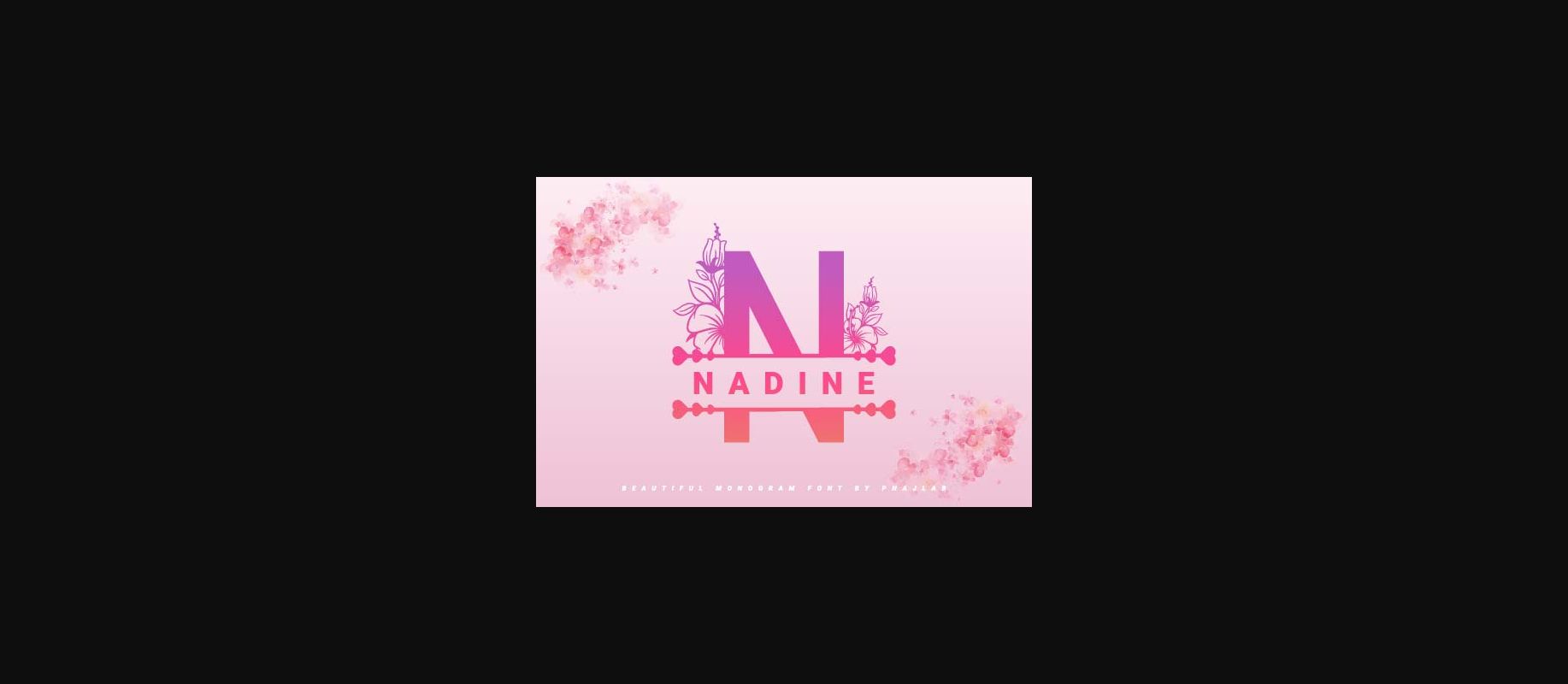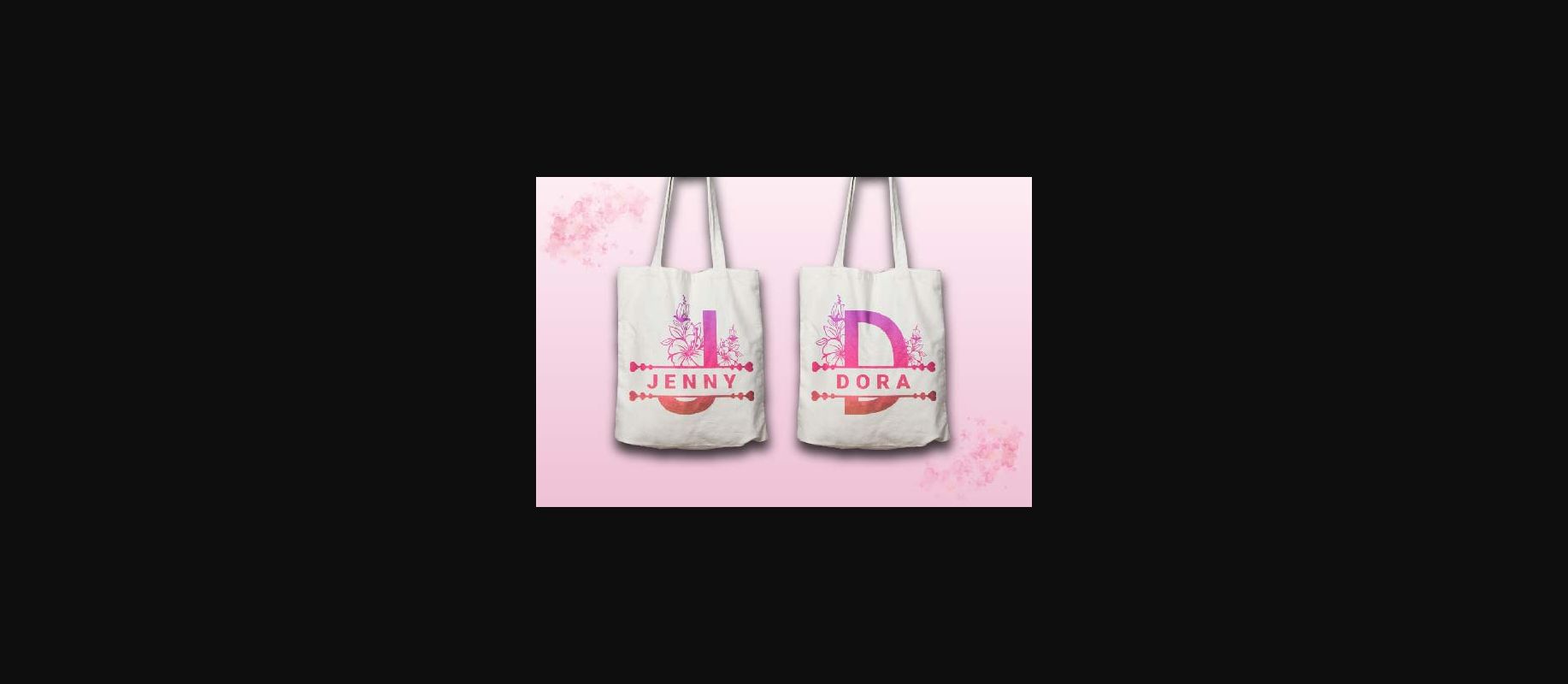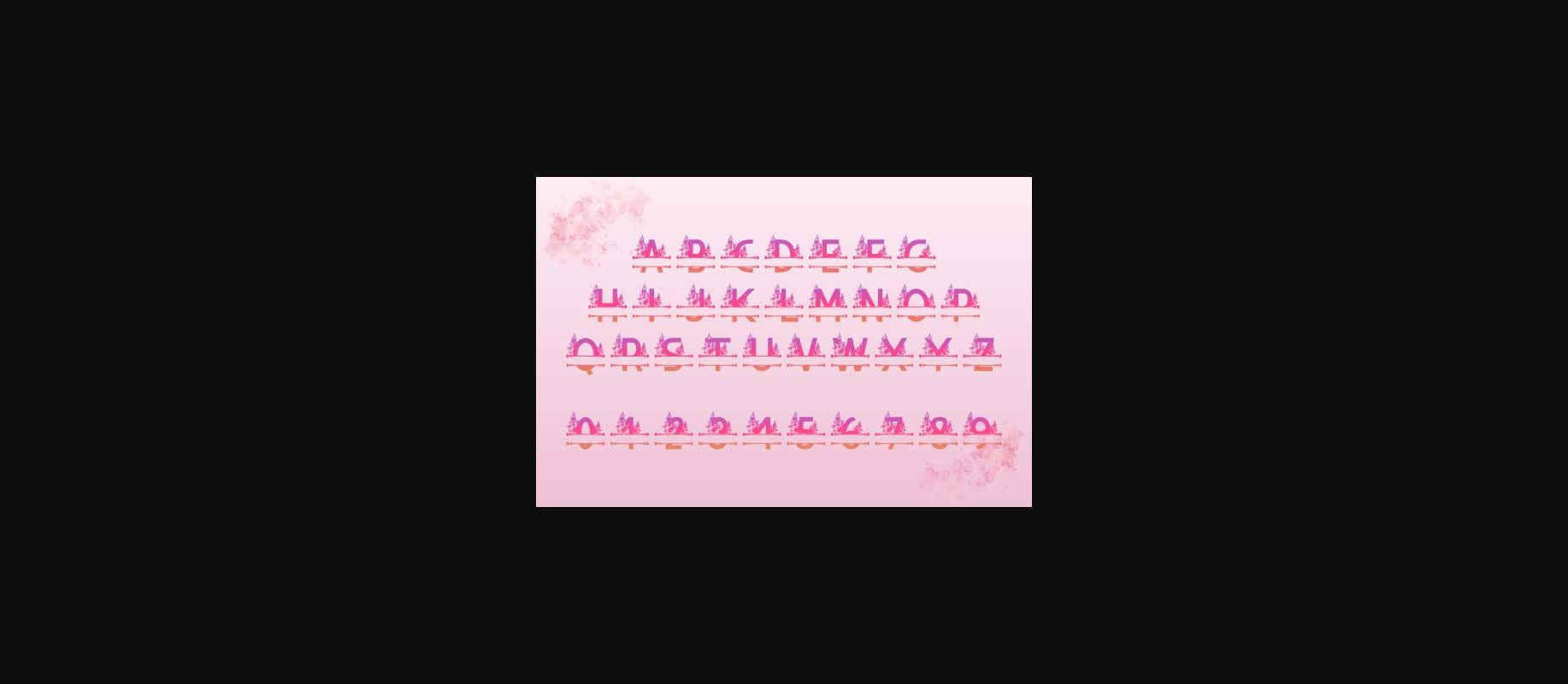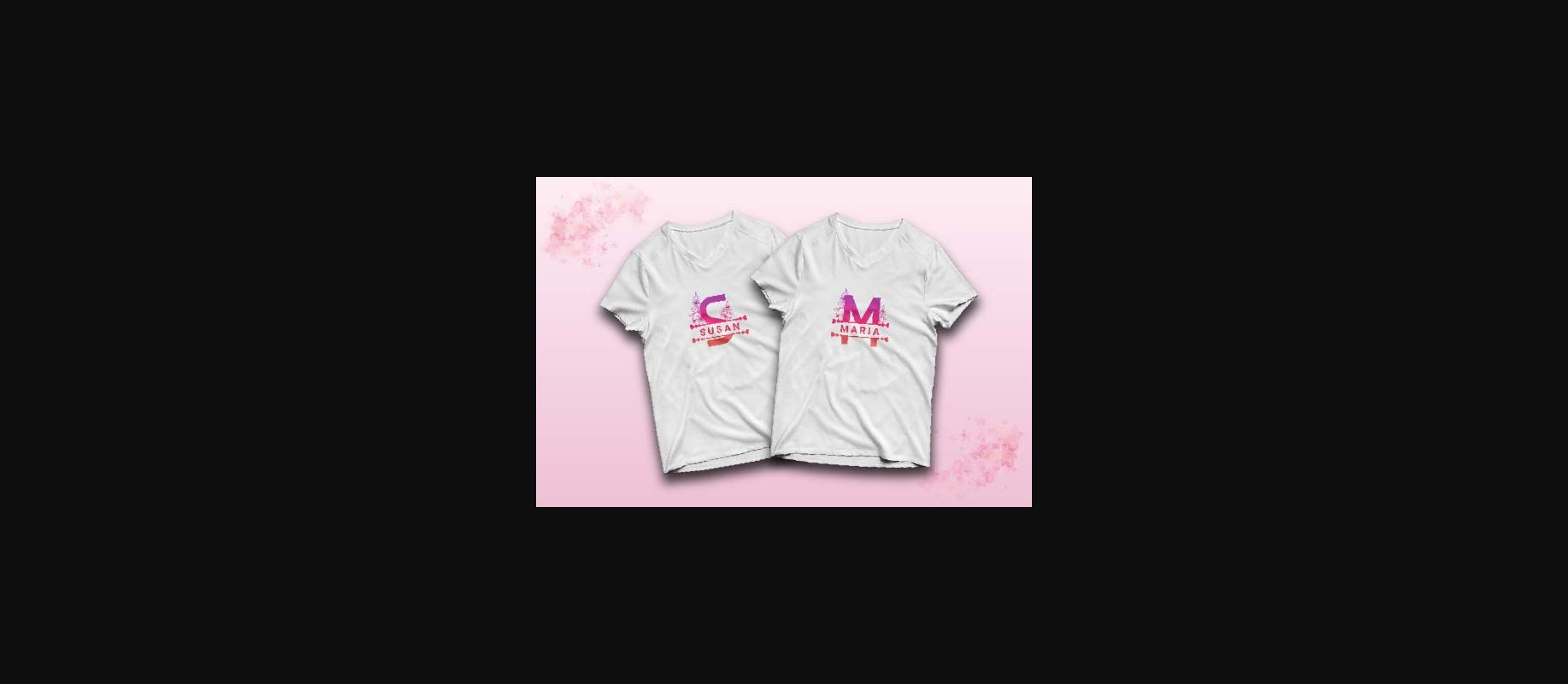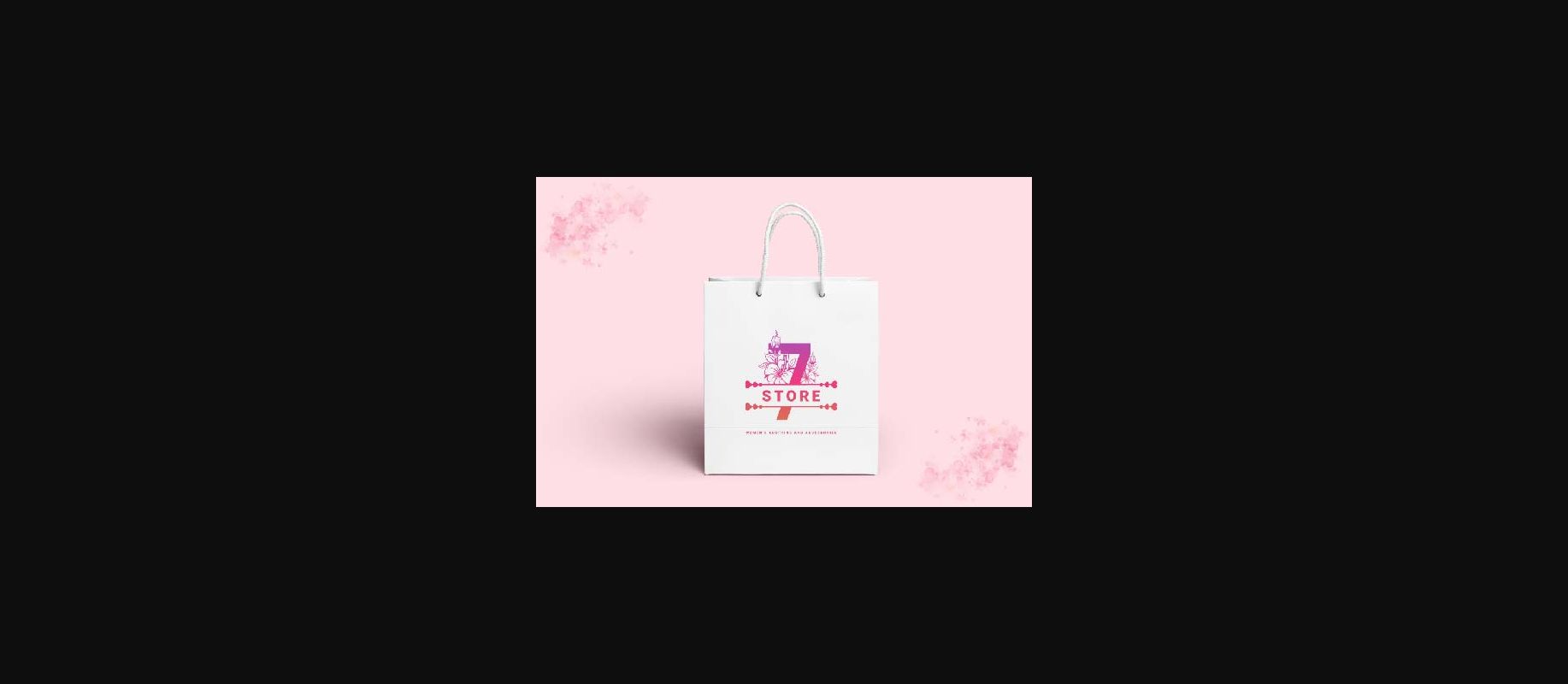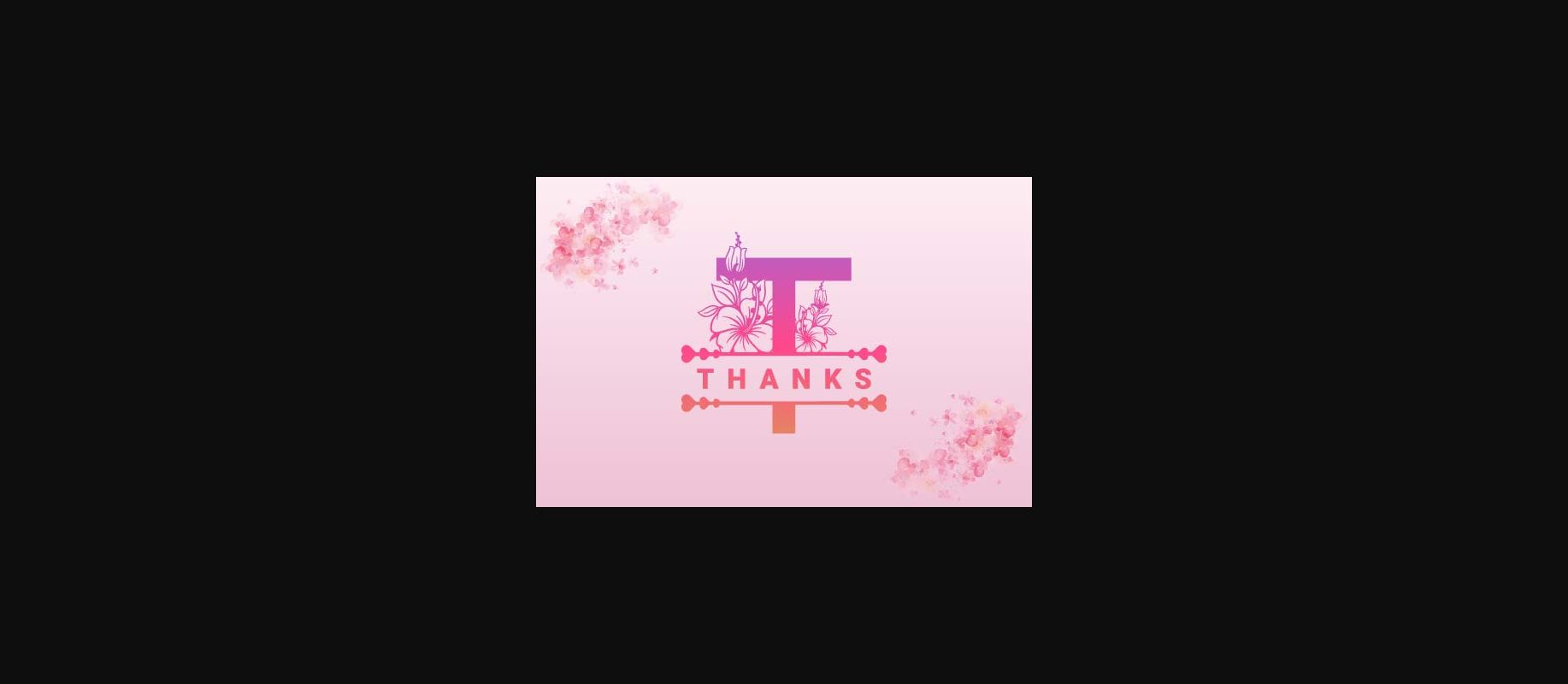
Nadine Flowers Monogram Font
About Nadine Flowers Monogram Font
Nadine Flowers Monogram is a sweet decorative font, featuring a lovely flower ornament. Fall in love with its authentic feel and use it to create gorgeous wedding invitations, beautiful stationary art, eye-catching social media posts, and cute greeting cards.